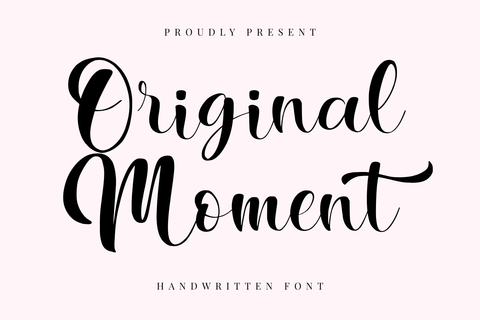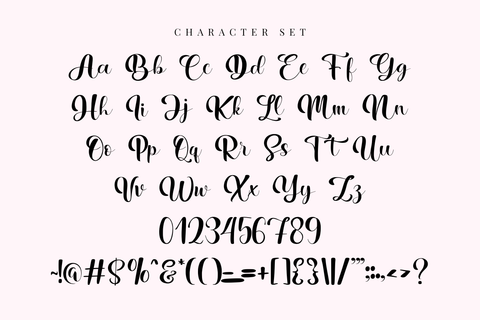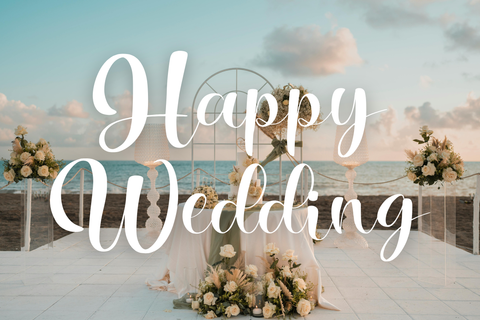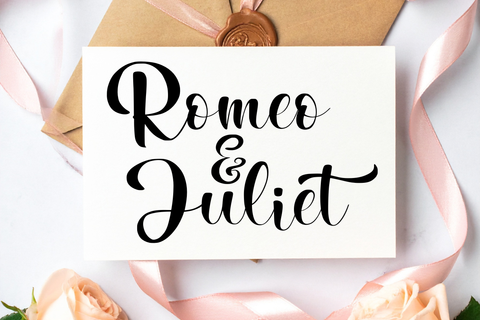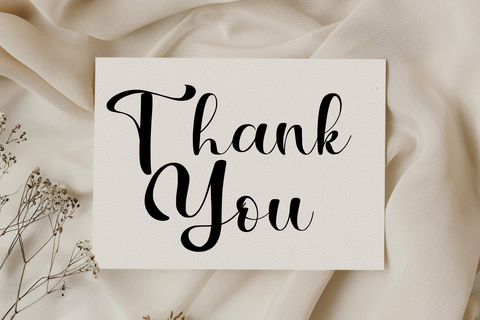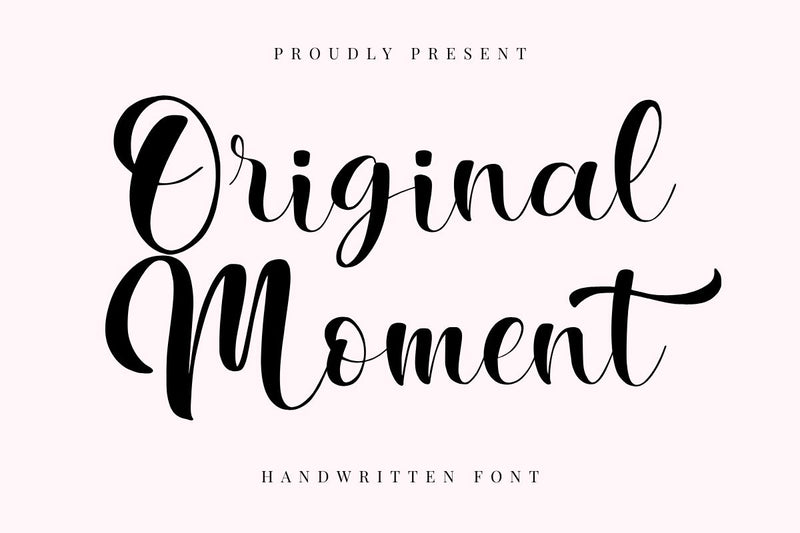
Original Moment - Beauty Handwritten Font
Original Moment is a sweet, cursive handwritten font with a soft and graceful character. Designed to bring a joyful and romantic feel, this font looks beautiful across a wide range of creative projects. Its elegant yet casual style makes it perfect for branding, logos, wedding designs, greeting cards, fashion materials, lookbooks, and marketing promotions. Whether you’re aiming for a fancy, elegant look or a warm handmade touch, Handmade adds charm and personality to every design.